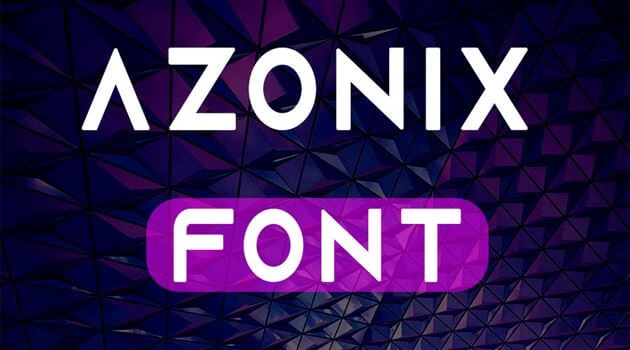
Azonix Font comes from the sans-serif family. There are too many are available on the web like this typeface. According to the designer’s claim, many fonts followed Azonix. The typeface consists of bold geometric upper case letters, numbers and punctuation (symbols). MixoFX is the designer of Azonix. You can follow MixoFx on Twitter, Click Here to follow. Using the font-face kit of Azonix font you can create beautiful websites with great typography. Font-Face kit of Azonix is also available on our website.
Azonix font is friendly to use everywhere. For logo design, this is the perfect font I think. In addition to these, some of the more useful ones are listed below:
- Banner
- Website
- Greetings Card
- Gift Card
- Business Card
- Certificate
- Brochure
- Youtube Thumbnail.
Azonix Font View
Ans: Azonix is a sans-serif font with a regular bold style.
Ans: Yes, It has. The closest similar alternative in Google fonts to Azonix is Roboto, Lato, Montserrat.